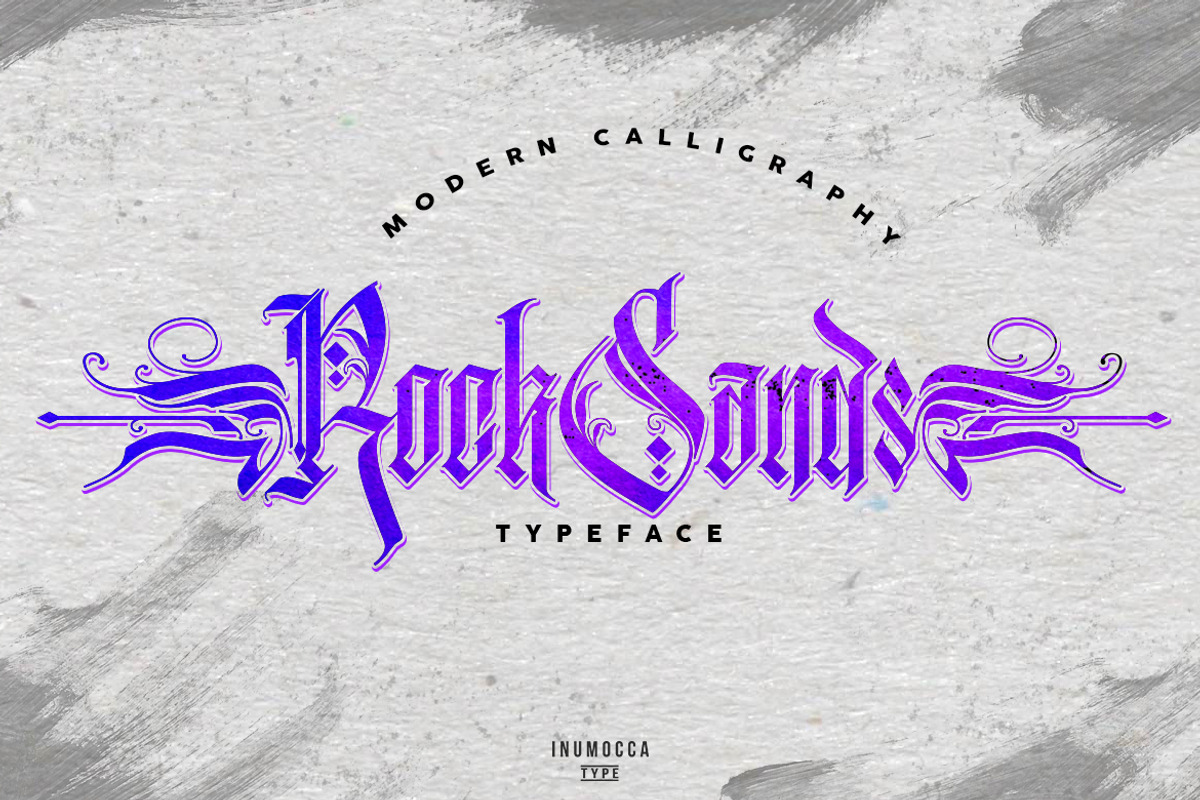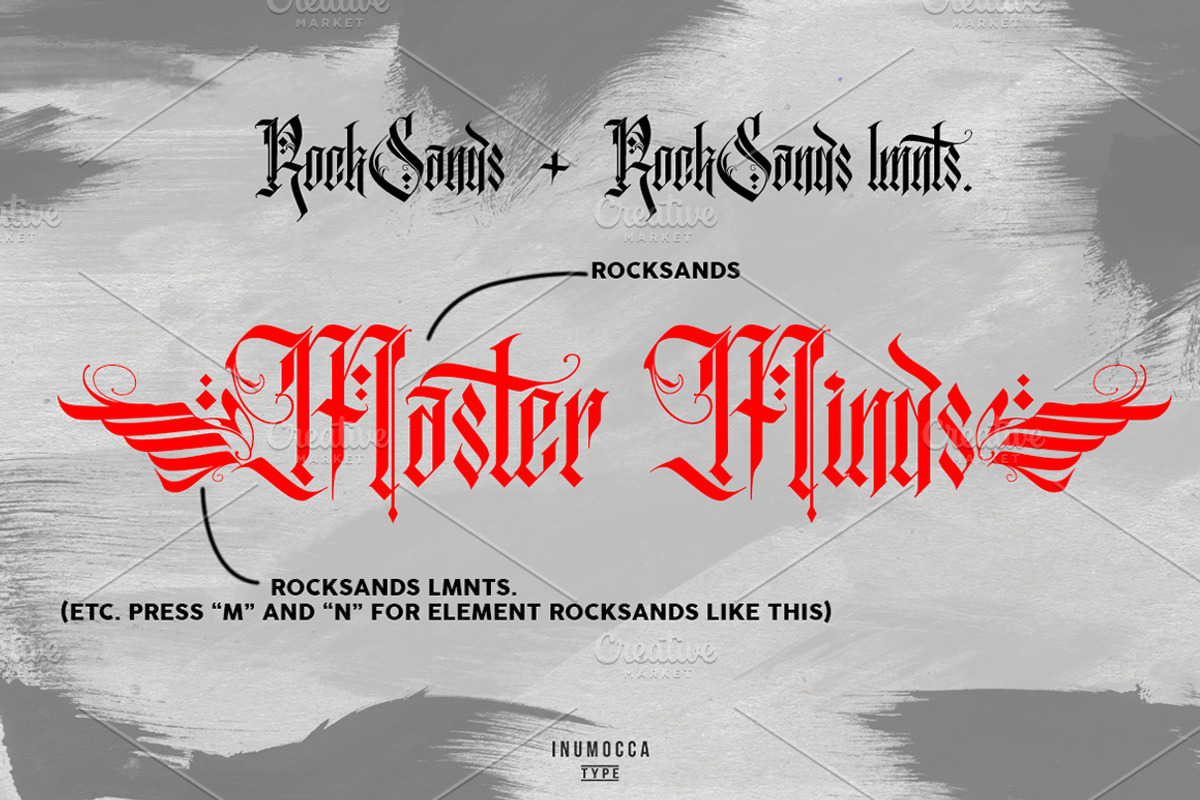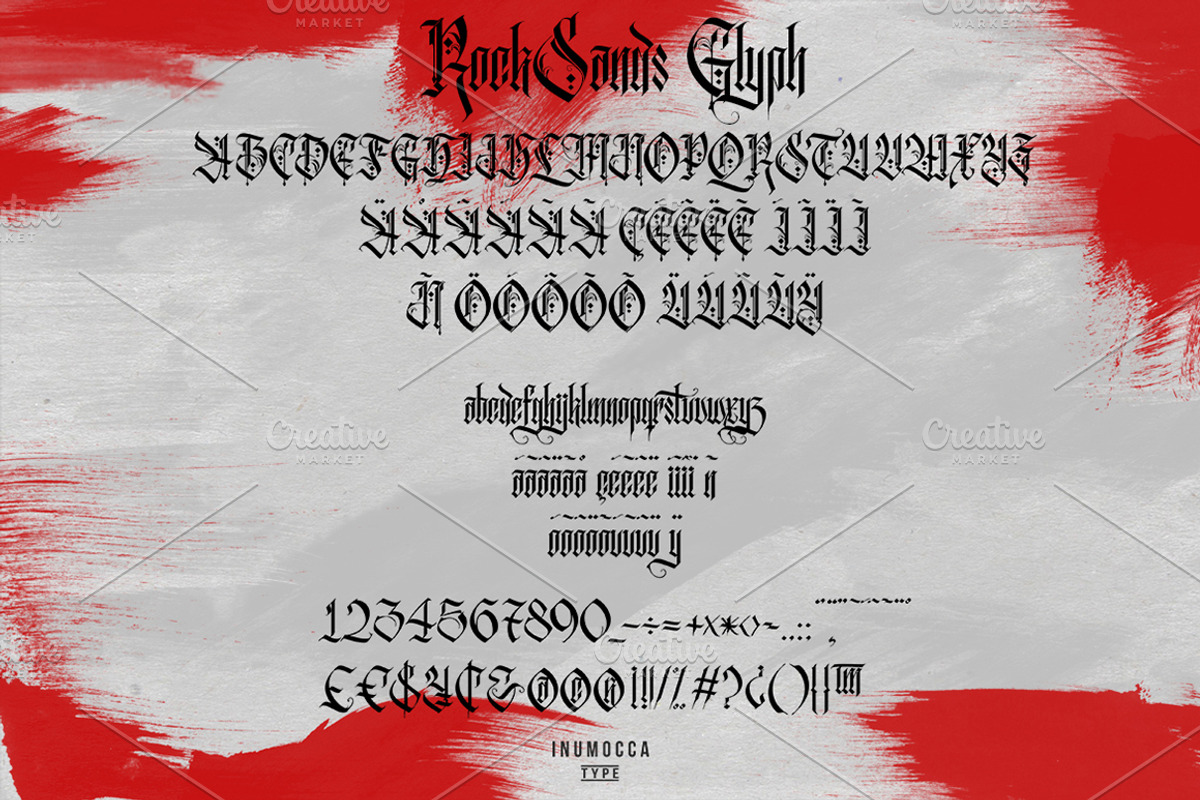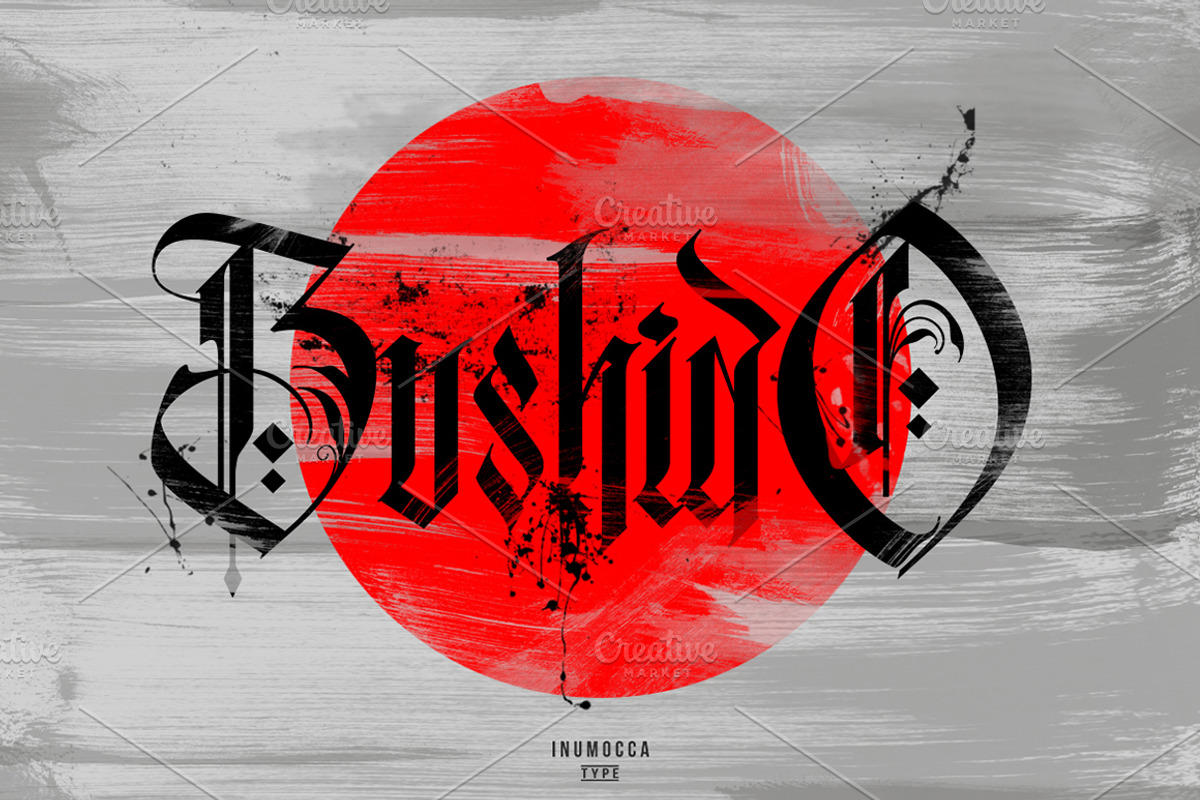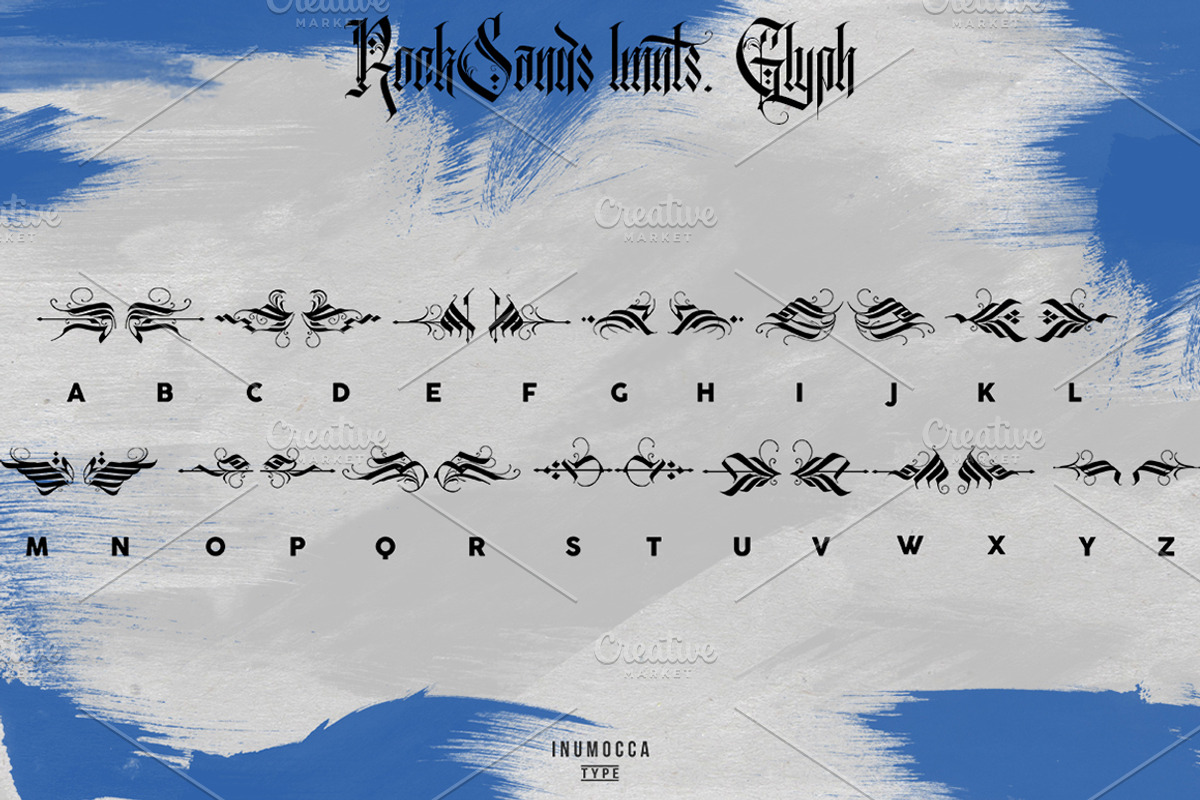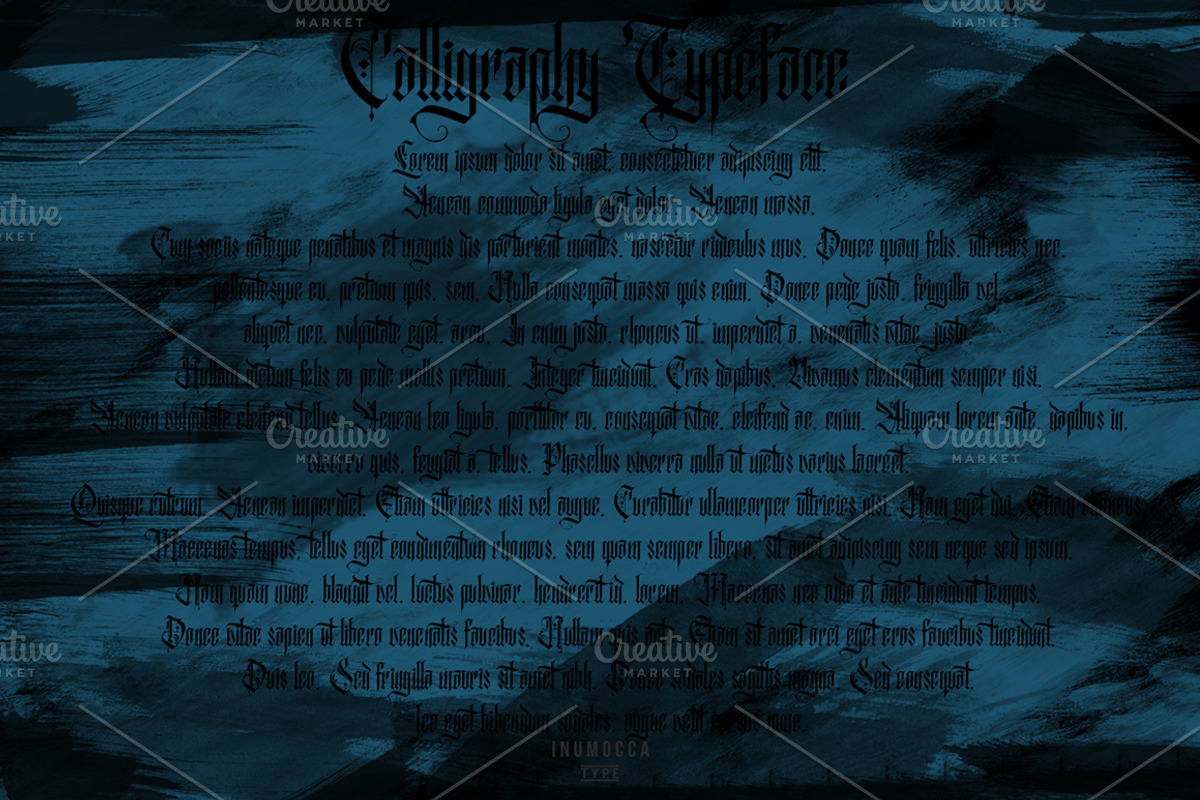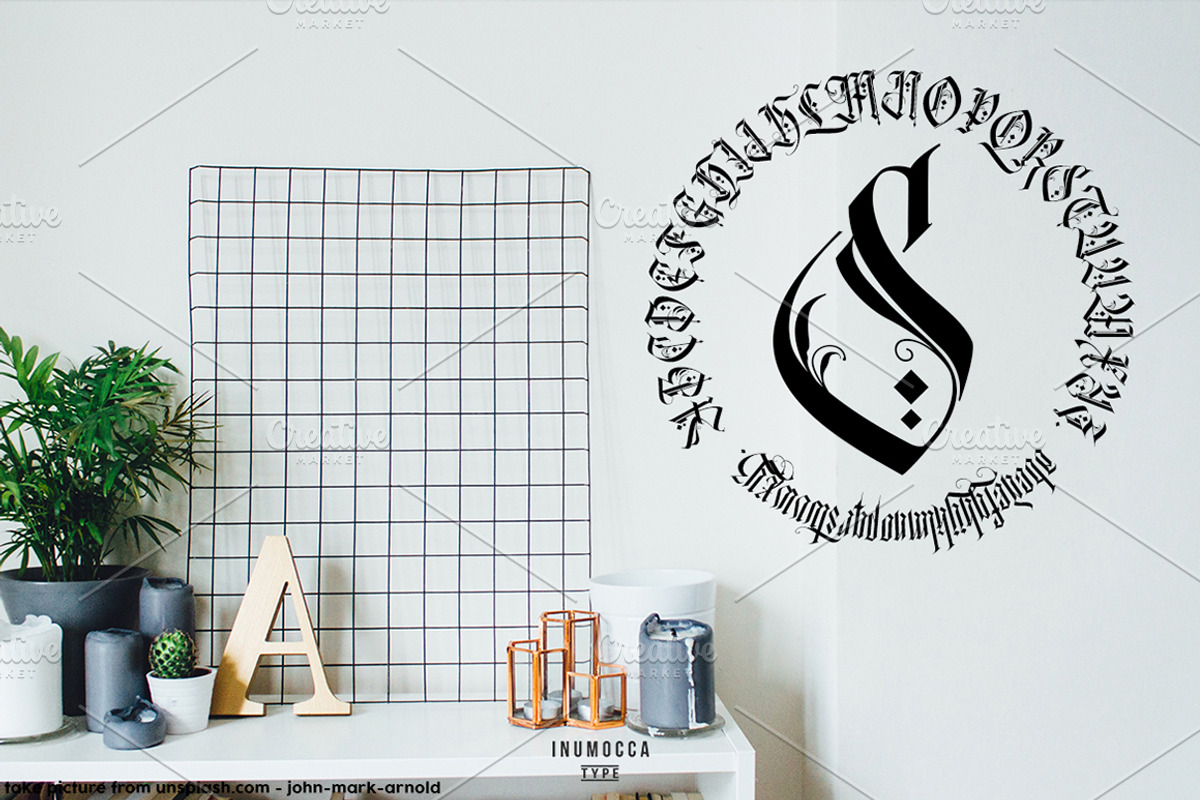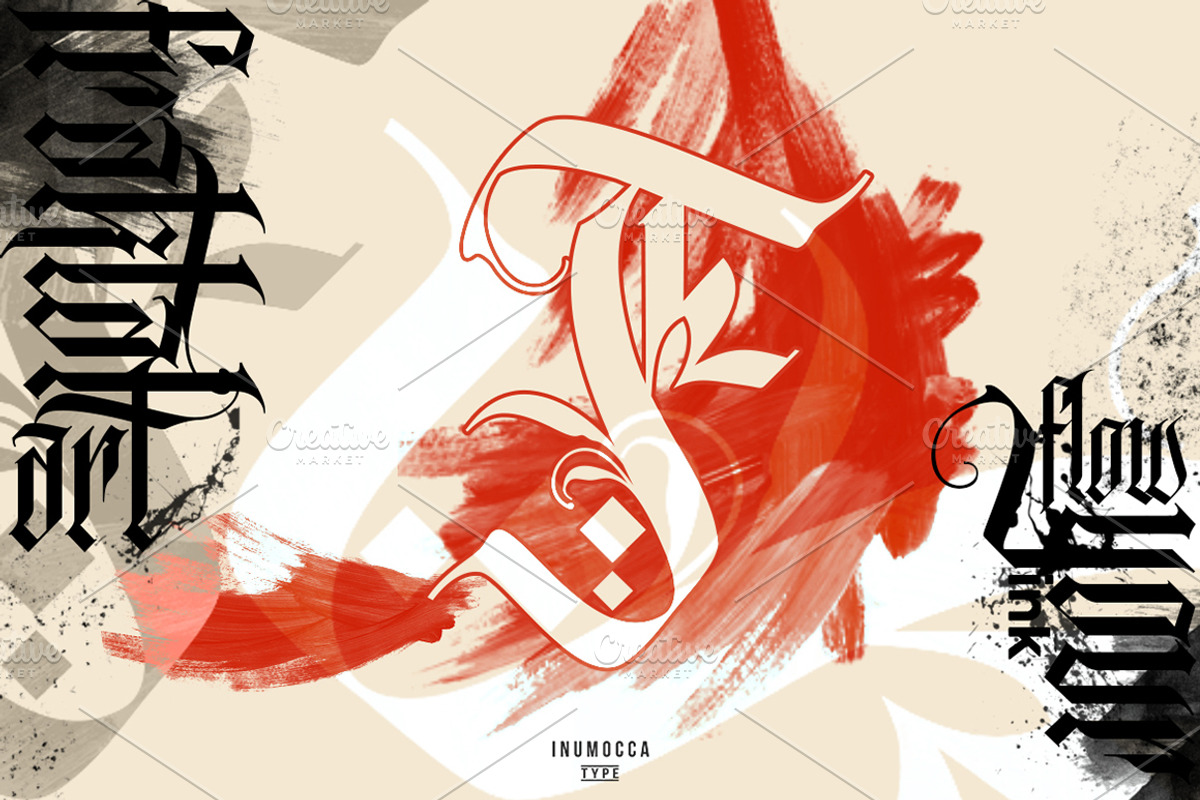
RockSands Typeface
RockSands Typeface and RockSands LMNTS. it's a modern Calligraphy, Classy, Vintage, Tattoo Look, great to playing with this typeface for your logos, signature, and other stuff.
RockSands Typeface and RockSands LMNTS :
Multilingual characters
Punctuation characters
RockSands Typeface by inumoccatype fits naturally into Branding, posters, packaging, typography.